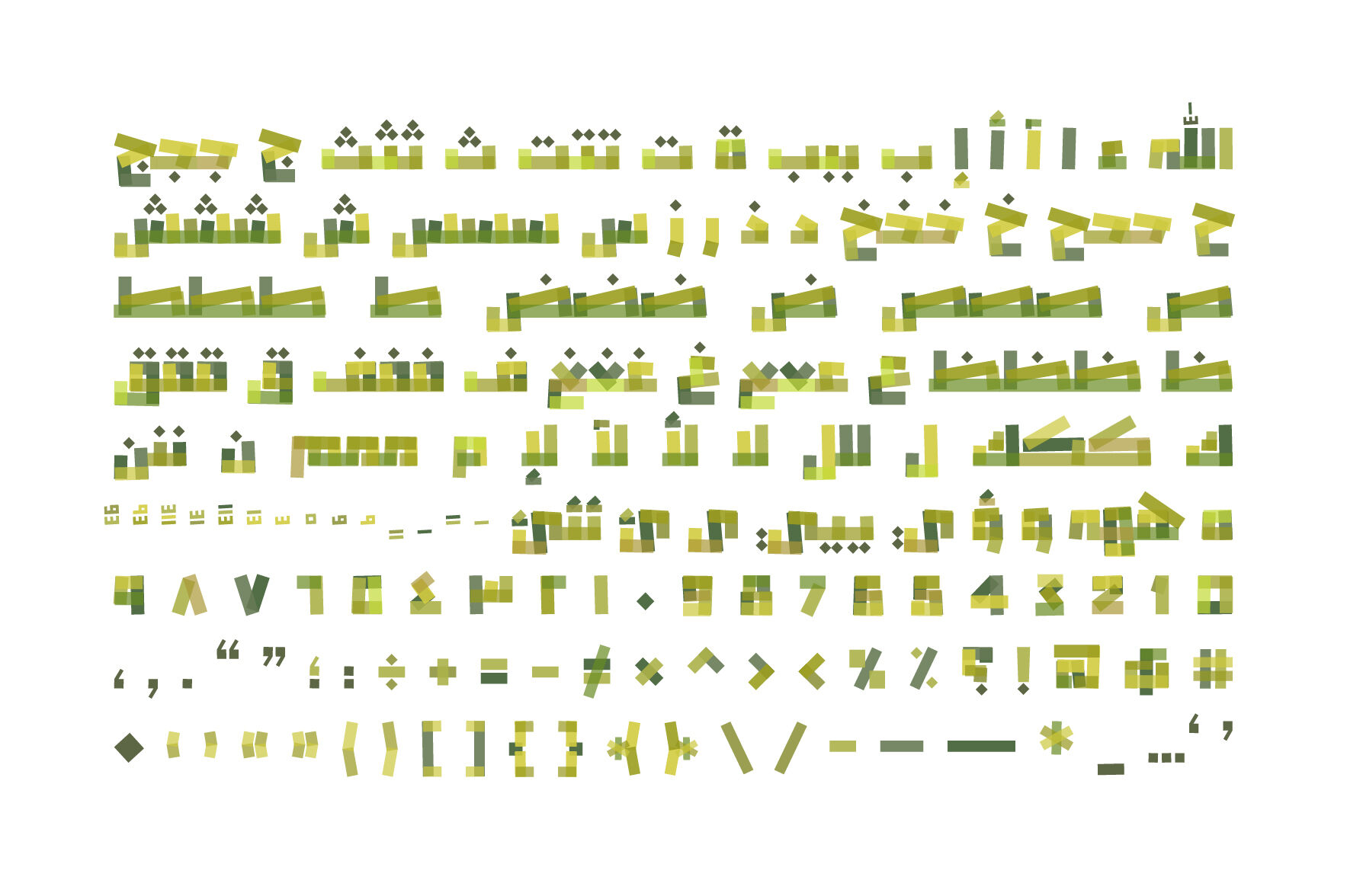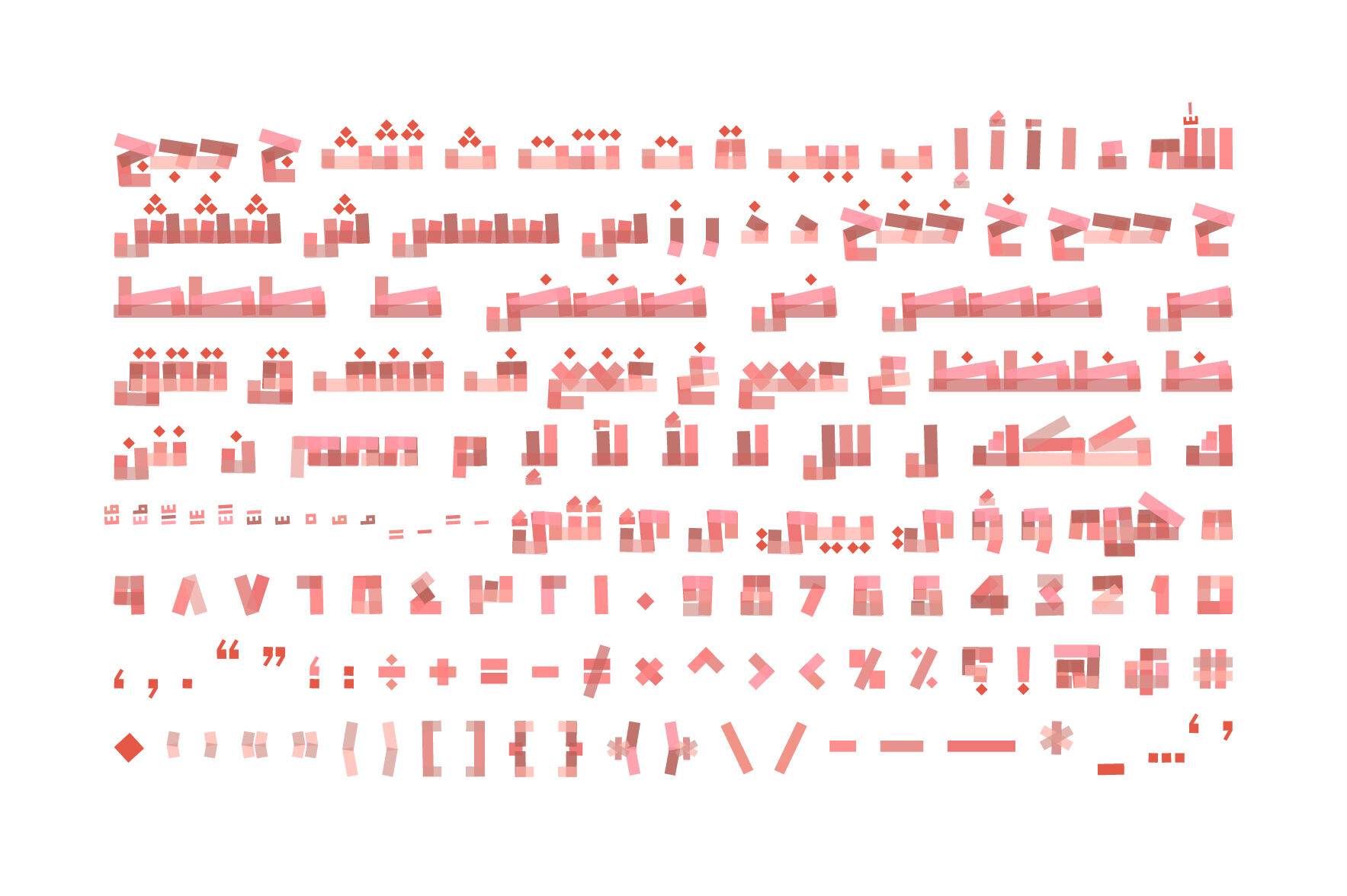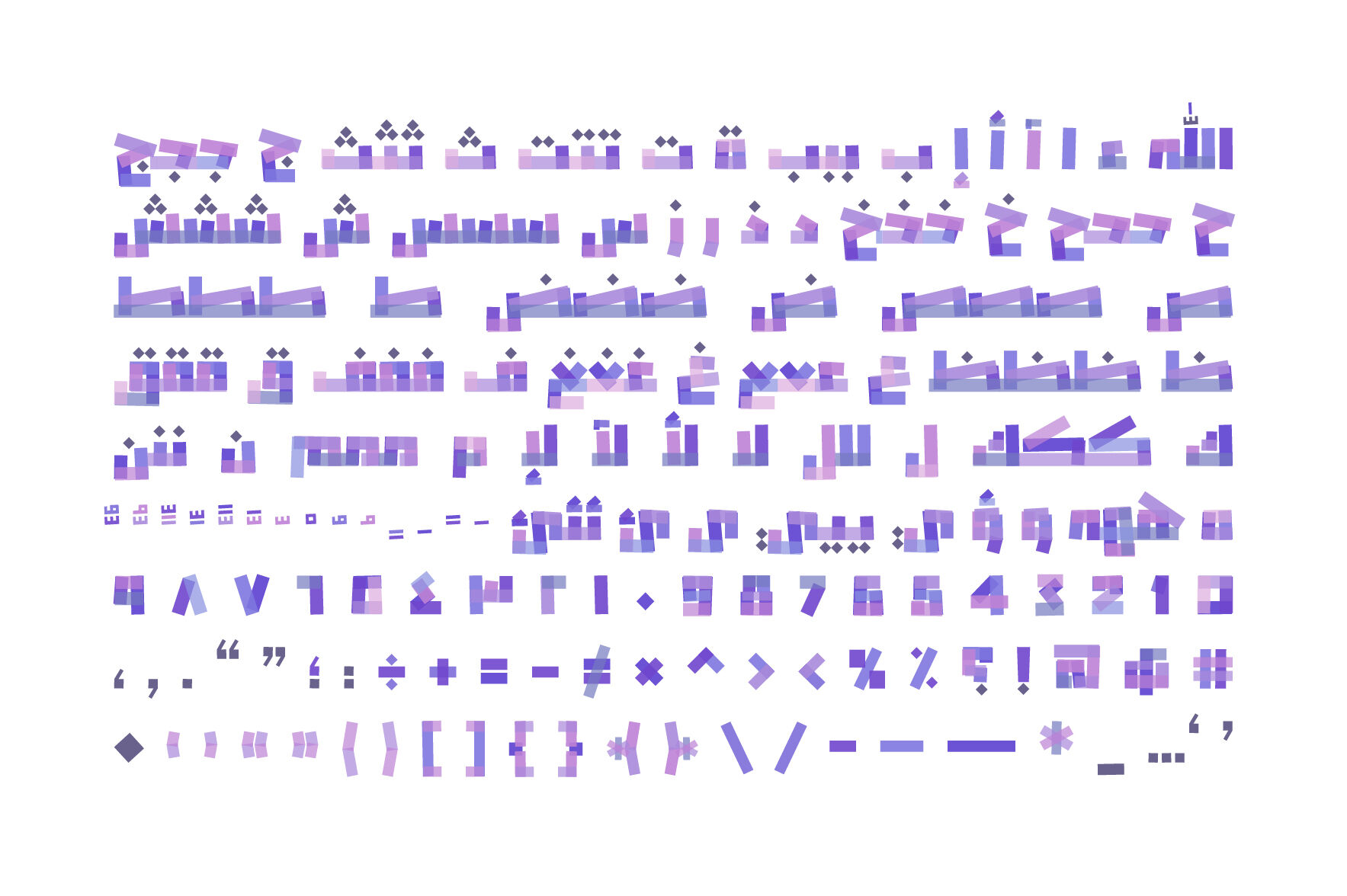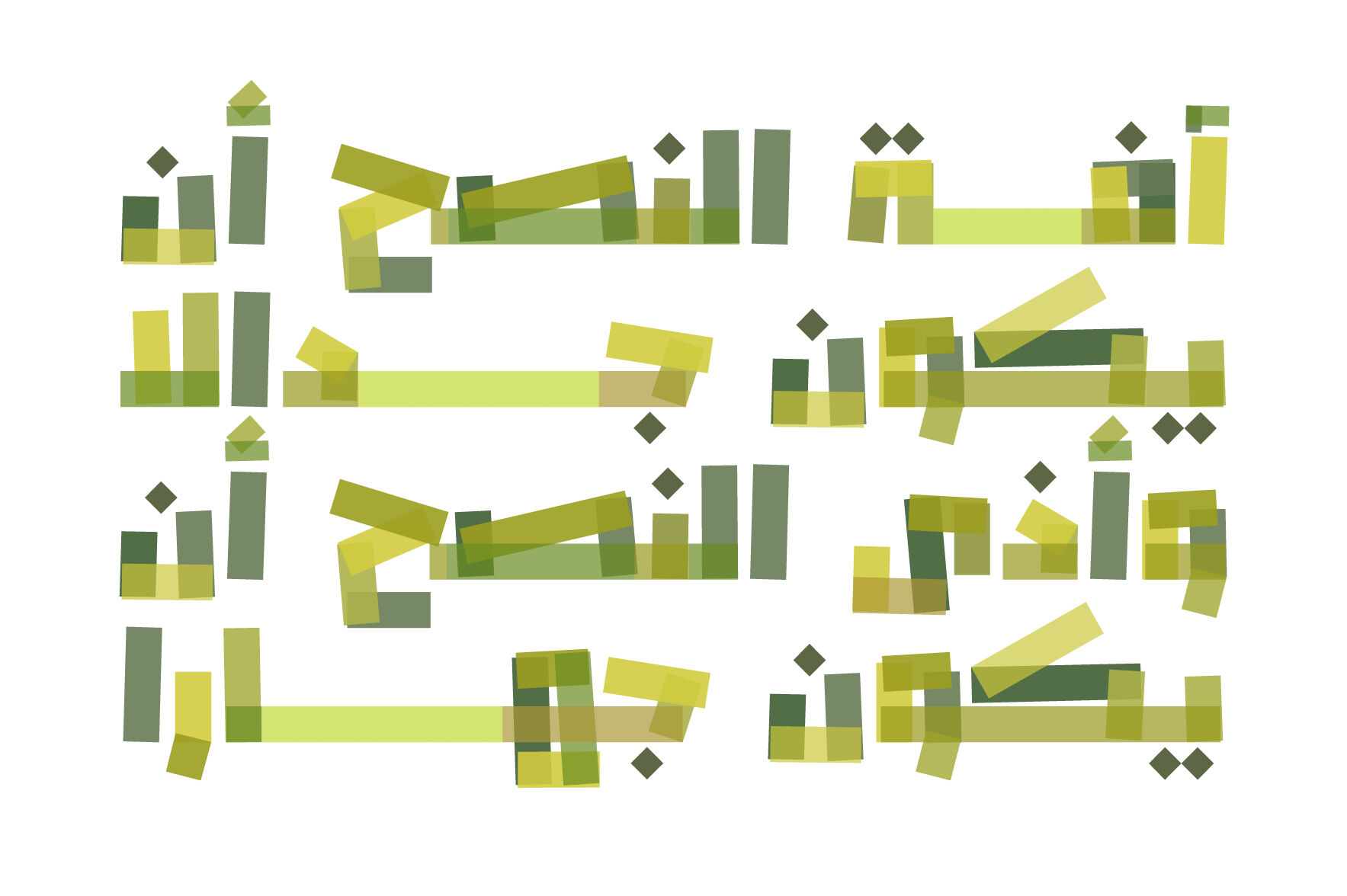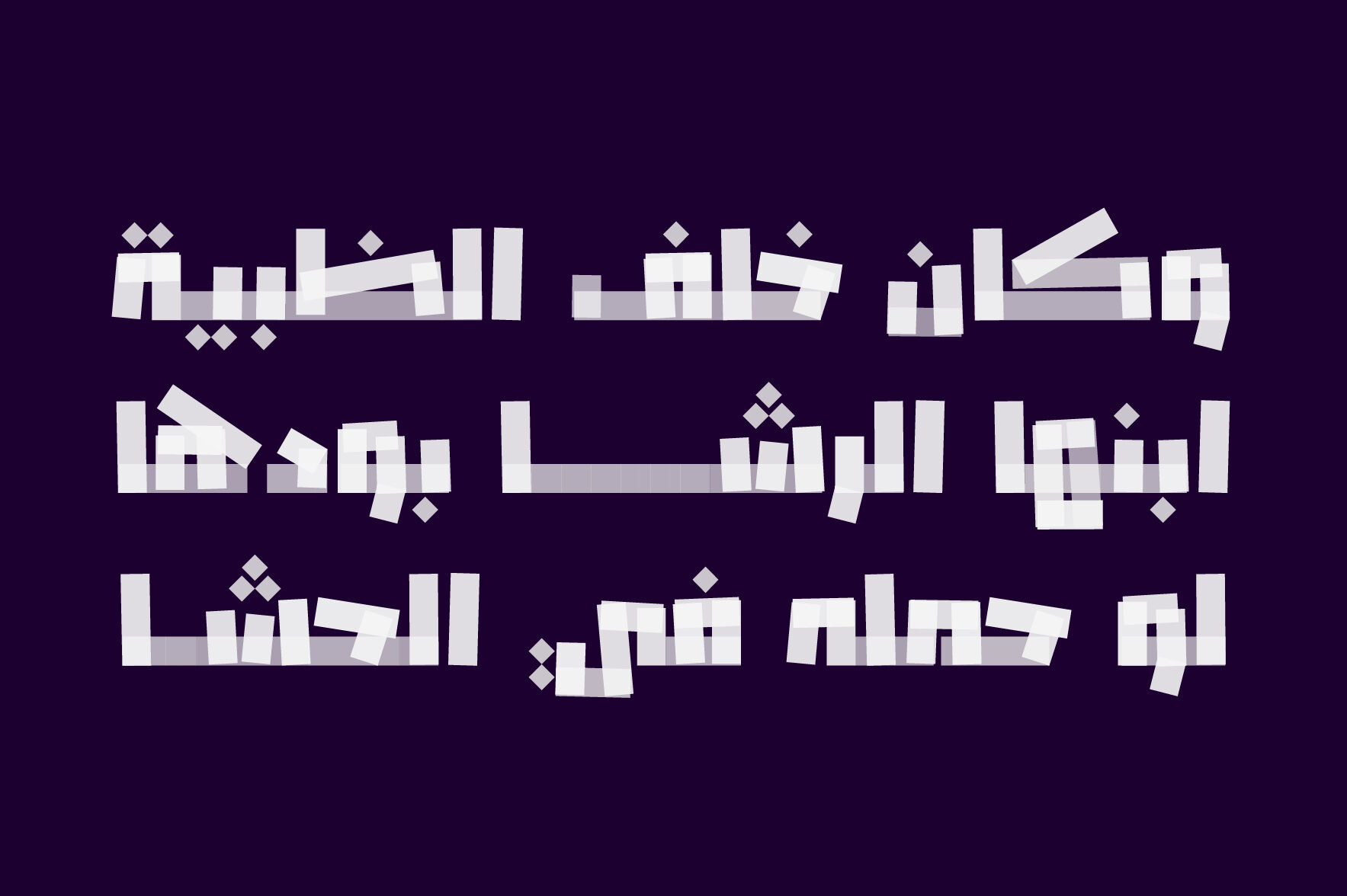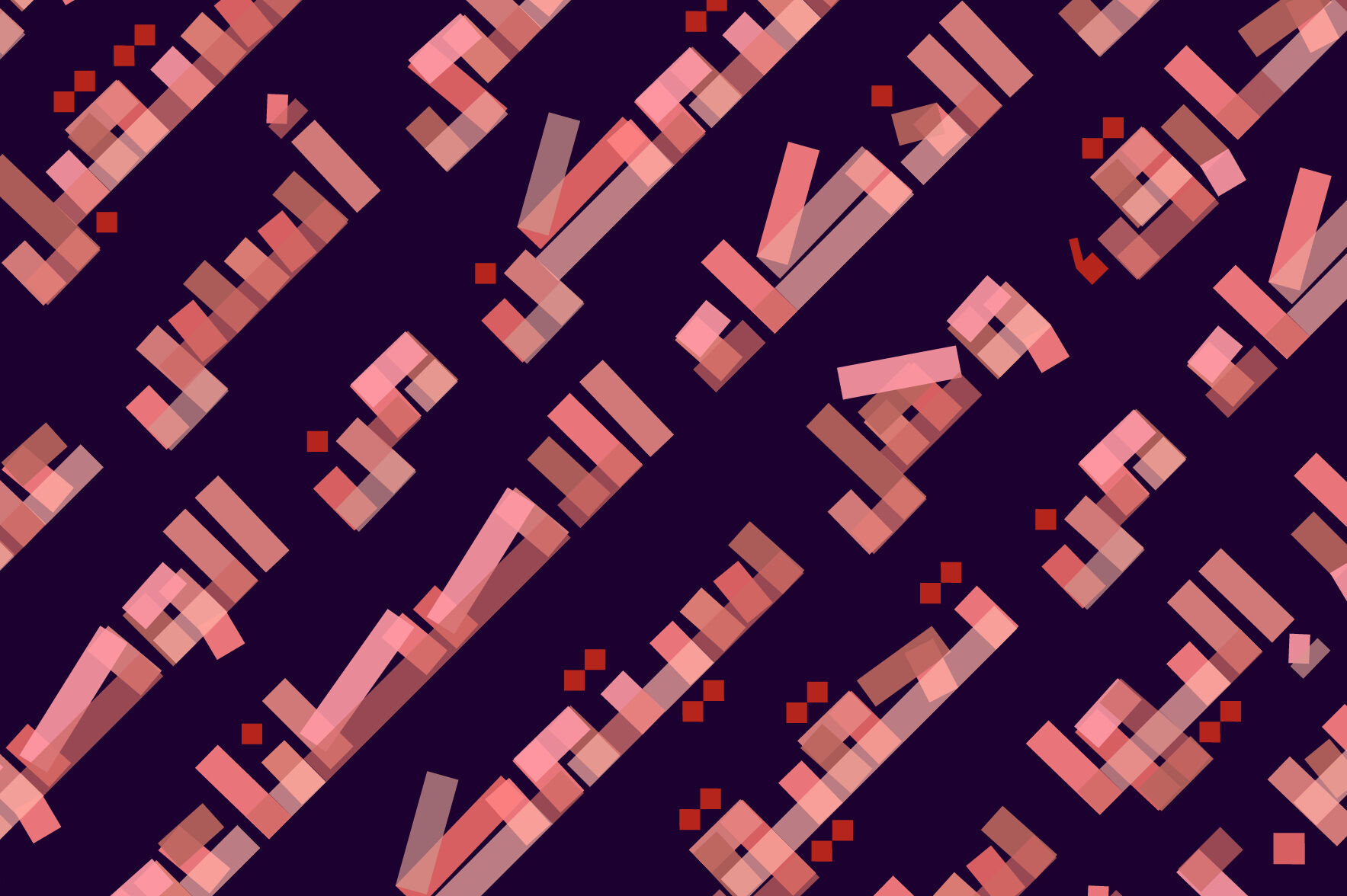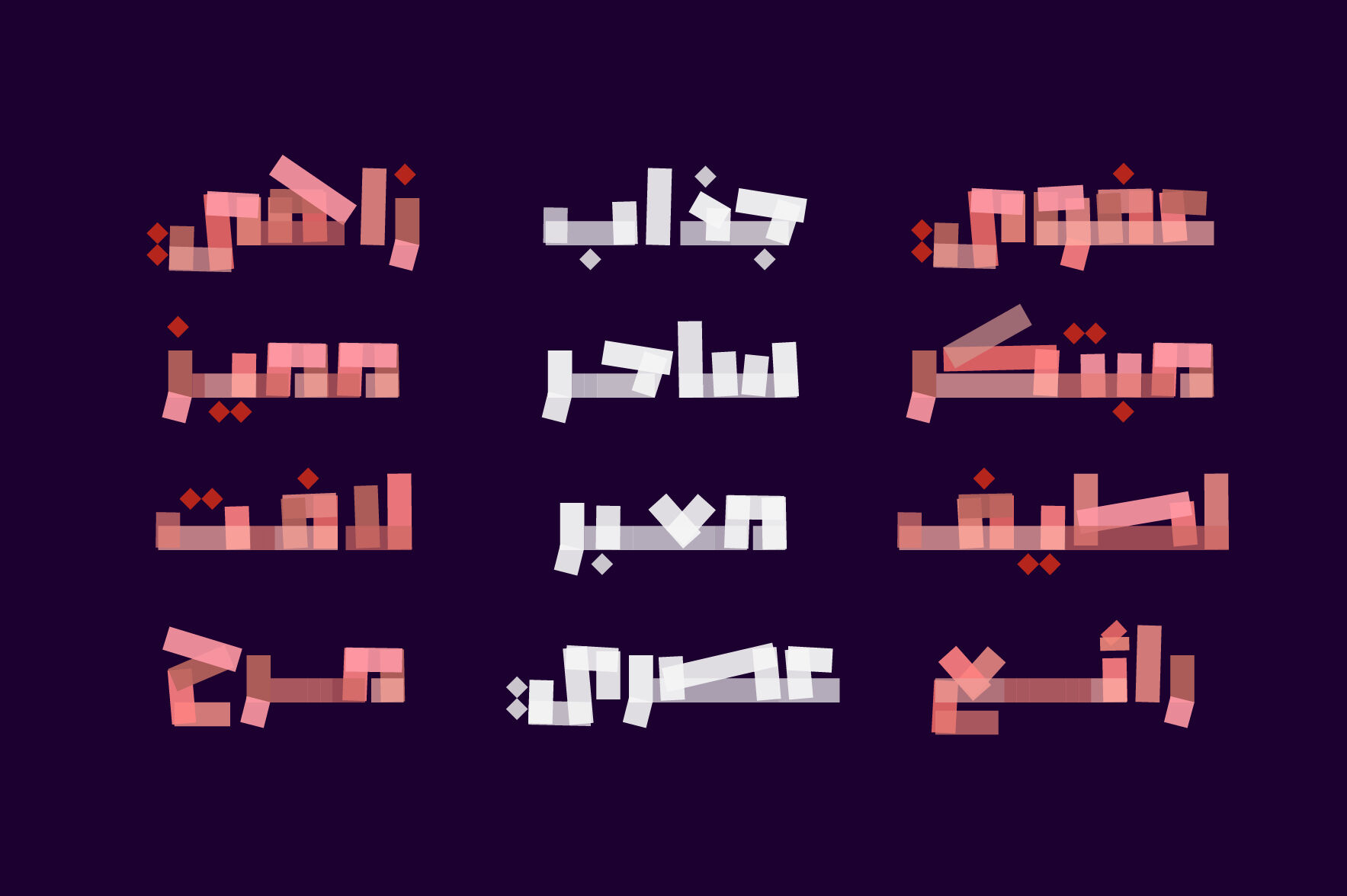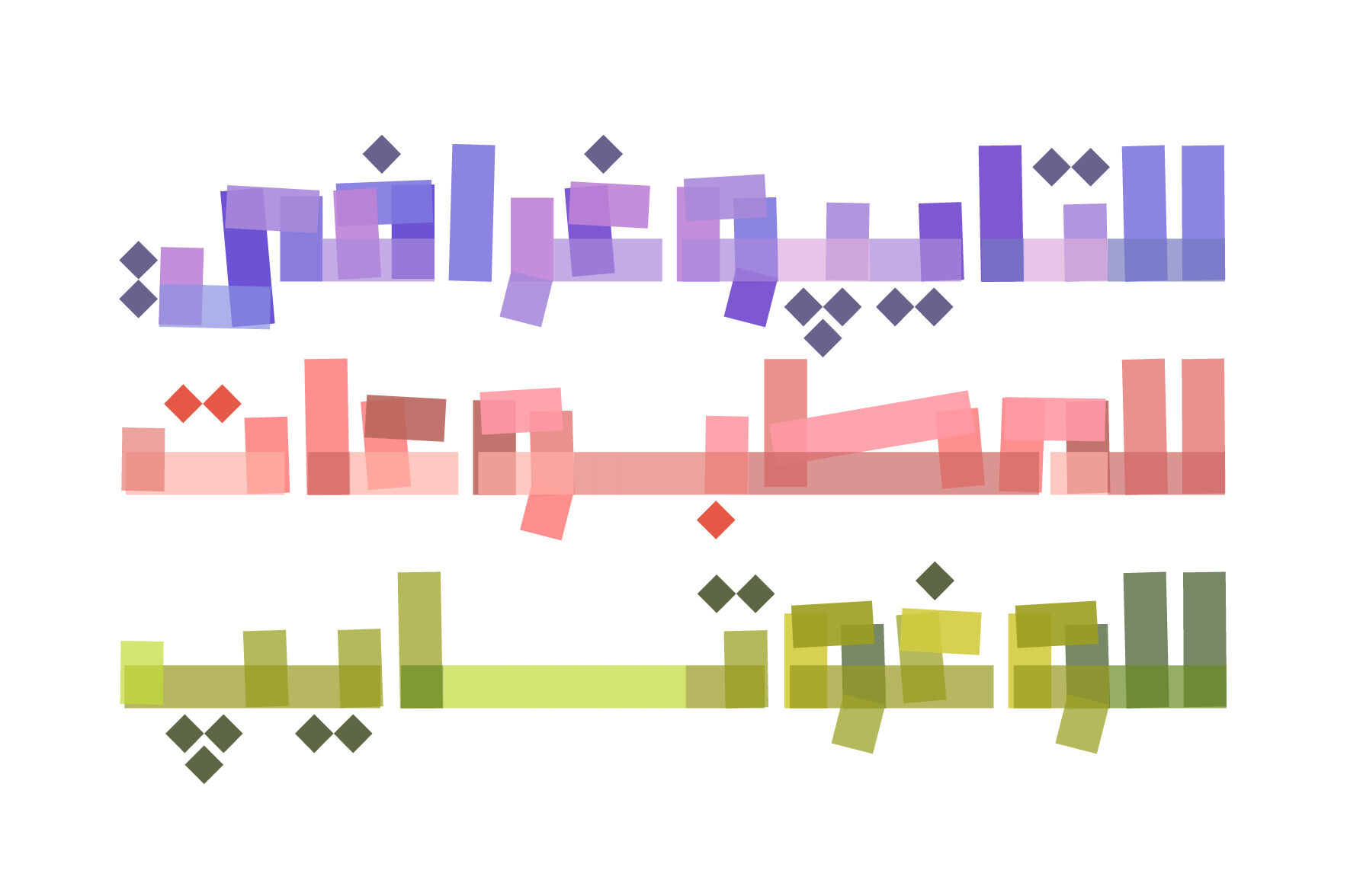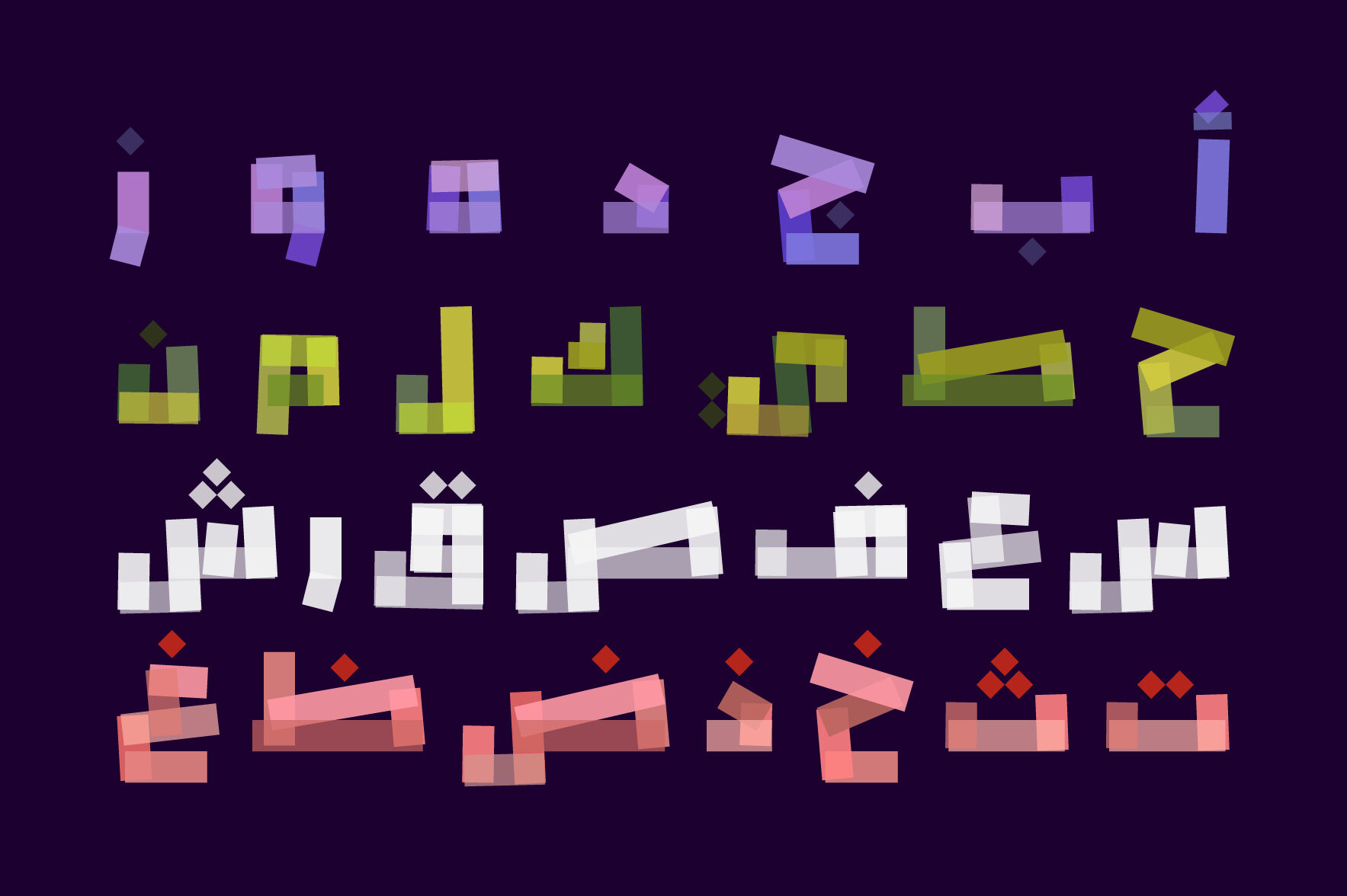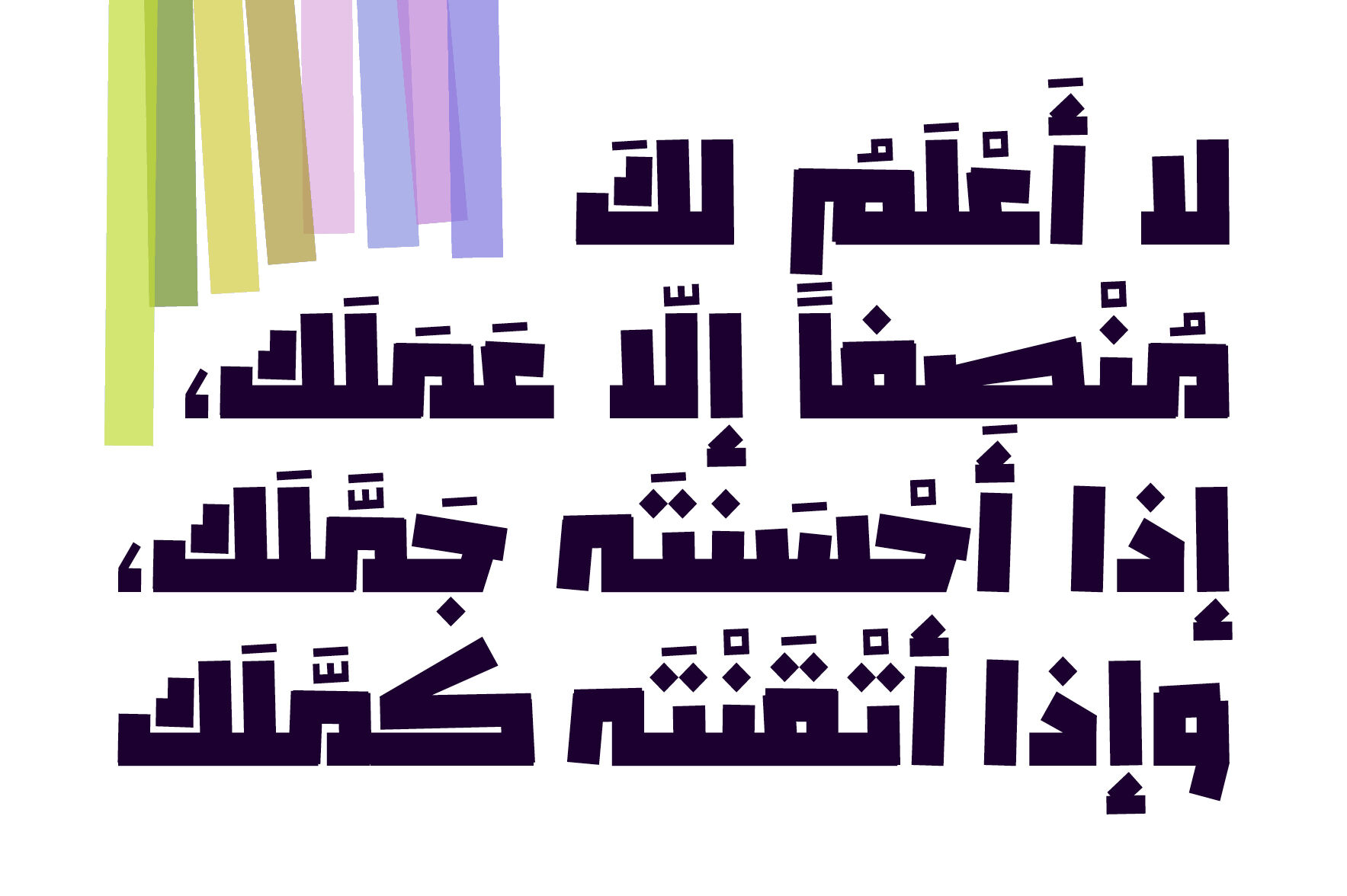
Shaffaf - Arabic Color Font
Shaffaf (the Arabic for 'Translucent') is an innovative Arabic display font that features a unique design inspired by the widely recognized colorful translucent ribbons. To achieve a spontaneous aesthetic, hues, transparency values and stem angles were generated randomly through a pseudorandom number generator. Shaffaf is an OpenType-SVG color font, featuring four distinct color variations alongside a traditional OTF font. It suits various creative projects, including web, print, and mobile applications, and is compatible with both Windows (10 or above) and macOS (High Sierra or above).